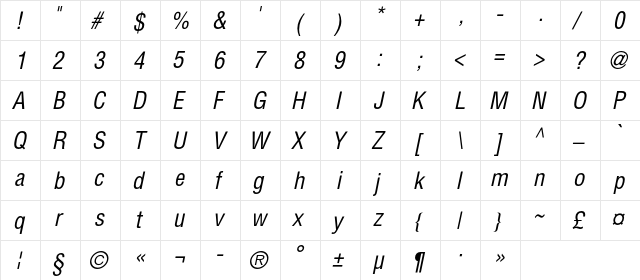
HeliosCondC Italic
Design Context for HeliosCondC Typeface
HeliosCondC takes a measured approach to typography — its balanced proportions and neutral character make it a reliable workhorse for both digital and print work. The dynamic lean of this cut emphasises speed and emphasis in any layout. Its narrow stance lets it pack a punch even in space-constrained designs.
Pro Tip: Use HeliosCondC for emphasis, pull quotes, and subheadings where its slanted energy can add rhythm to the layout.